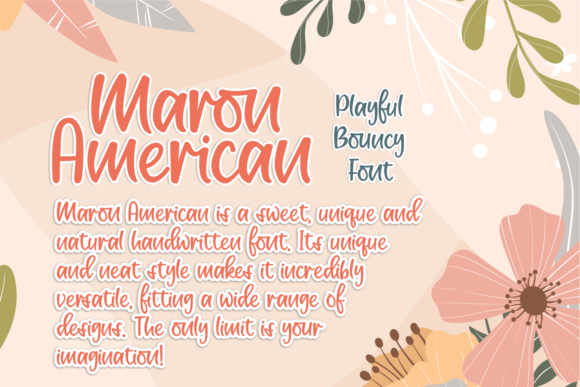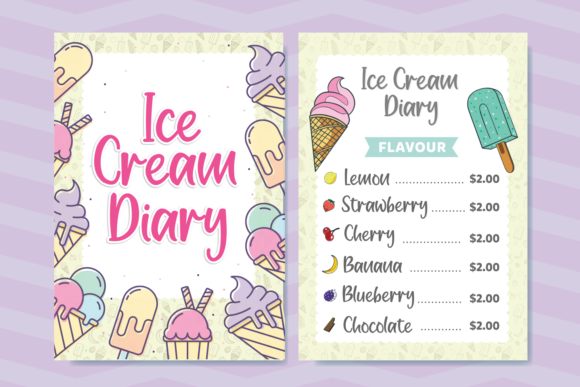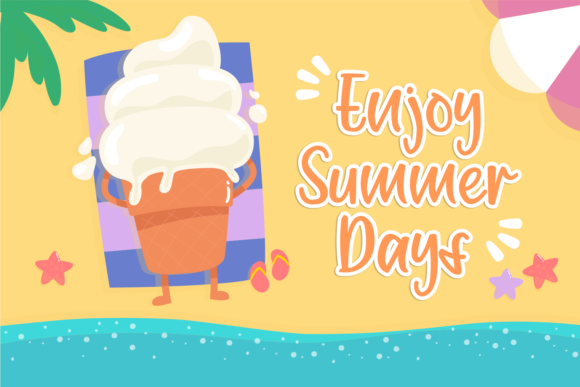
Introduction to Maron American Font
Remember that moment when you’re brainstorming a creative project, and you just can’t seem to find the right font to capture the essence of your vision? You scroll through countless options, but nothing seems to stand out. That’s where the Maron American Font comes in – a game-changing addition to your design arsenal that’s sure to elevate your work to the next level.
As a valuable resource for designers, the Maron American Font offers a unique blend of style and versatility that makes it an indispensable tool for any creative project. With its natural, handwritten feel, this high-quality font is perfect for adding a personal touch to your designs, whether you’re working on a free download or a paid project.
From logos to social media graphics, the Maron American Font is a design resource that’s sure to impress. Its transparent background and stylish feel make it incredibly easy to use, and its free download option means you can get started right away.
Key Features of Maron American Font
- High-quality typography with a modern and elegant design, perfect for creative projects.
- Features a transparent background, making it ideal for use on images, videos, or any other design resource.
- Comes in a range of sizes and resolutions, from 72 dpi to 300 dpi, to suit your specific design needs.
- Unique characteristics include a clean and minimalist aesthetic, with subtle nuances in letter spacing and line height.
- Designed to be versatile and adaptable, making it suitable for a wide range of creative projects, from branding and advertising to editorial and publishing.
Honest Review: Maron American Font
As a designer, I’m always on the lookout for high-quality design resources to enhance my creative projects. The Maron American Font is a recent discovery that caught my attention, and I’m excited to share my honest review.
What works well about the Maron American Font is its versatility and readability. The font is clean and modern, making it perfect for a variety of design applications, from headings to body text. I’ve used it for a recent project and was impressed by its legibility, even at smaller font sizes. ✨
The font also comes with a transparent background, which is a bonus for designers who want to customize their designs without any distractions. Another plus is that it’s a free download, making it an accessible design resource for designers of all levels.
However, I did encounter some limitations with the Maron American Font. While it’s a great font for digital designs, it may not be the best choice for print projects that require high-resolution images. Additionally, the font’s compatibility with certain software can be a bit hit-or-miss. ⚠️
- High-quality design resource
- Perfect for digital designs and creative projects
Overall, the Maron American Font is a solid addition to any designer’s toolkit. While it may have some limitations, its strengths far outweigh its weaknesses, making it a great choice for designers looking for a reliable and versatile font.
Some tips for getting the most out of Maron American Font include using it for headings, titles, and emphasis in your design project. You can also use it for logos, business cards, and other branding materials. The font’s unique style and high-quality design make it suitable for a variety of creative projects.